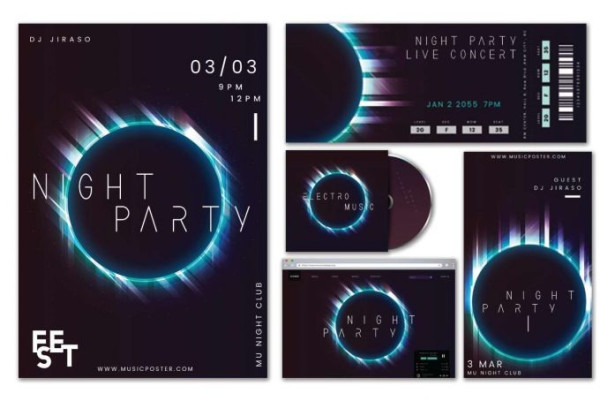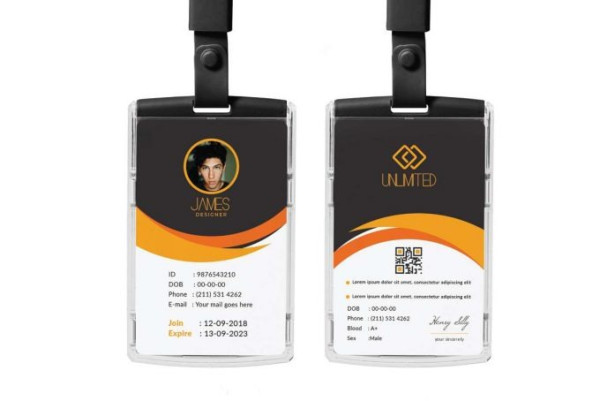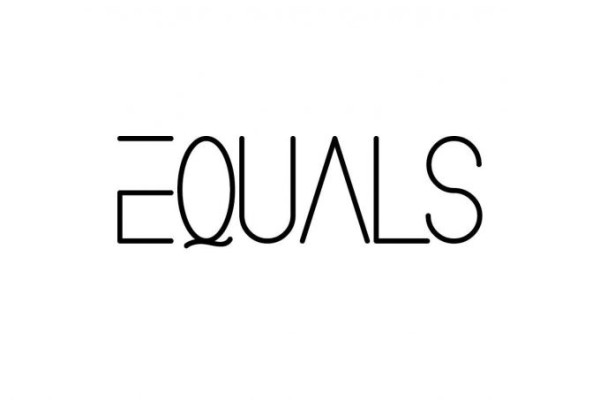
Equals Font
Equals Font is a futuristic display font family originally designed by NihStudio. It will be suitable for many business and industries including sports, technology, startup, gadget, games, movies etc.
Equals Font is a modern and minimalist display font. Try the font by typing your own text below. Please note that the test font below is a demo file, so some specimens/characters will not show up.